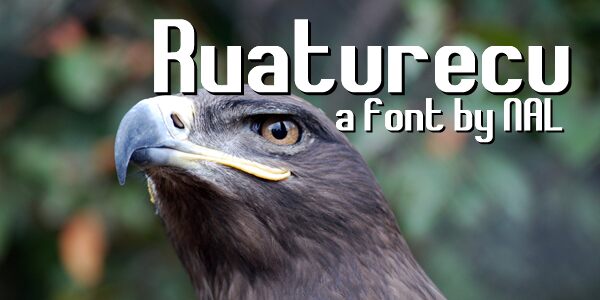
Rvaturecu, designed by NAL of FSI FontShop International GmbH, is a free condensed sans serif with exceptionally tall, slim proportions, near-uniform strokes, rounded shoulders, and squared curves. The result is stark and architectural.
It is most convincing in poster headlines, where the narrow forms can build a dense vertical wall of type without ornate detail. The rigid silhouette also suits fashion branding and experimental music artwork. On event signage, the repeated arches and blunt cutoffs become a graphic motif that recalls columns, gates, and modernist structures.
Rvaturecu
NAL